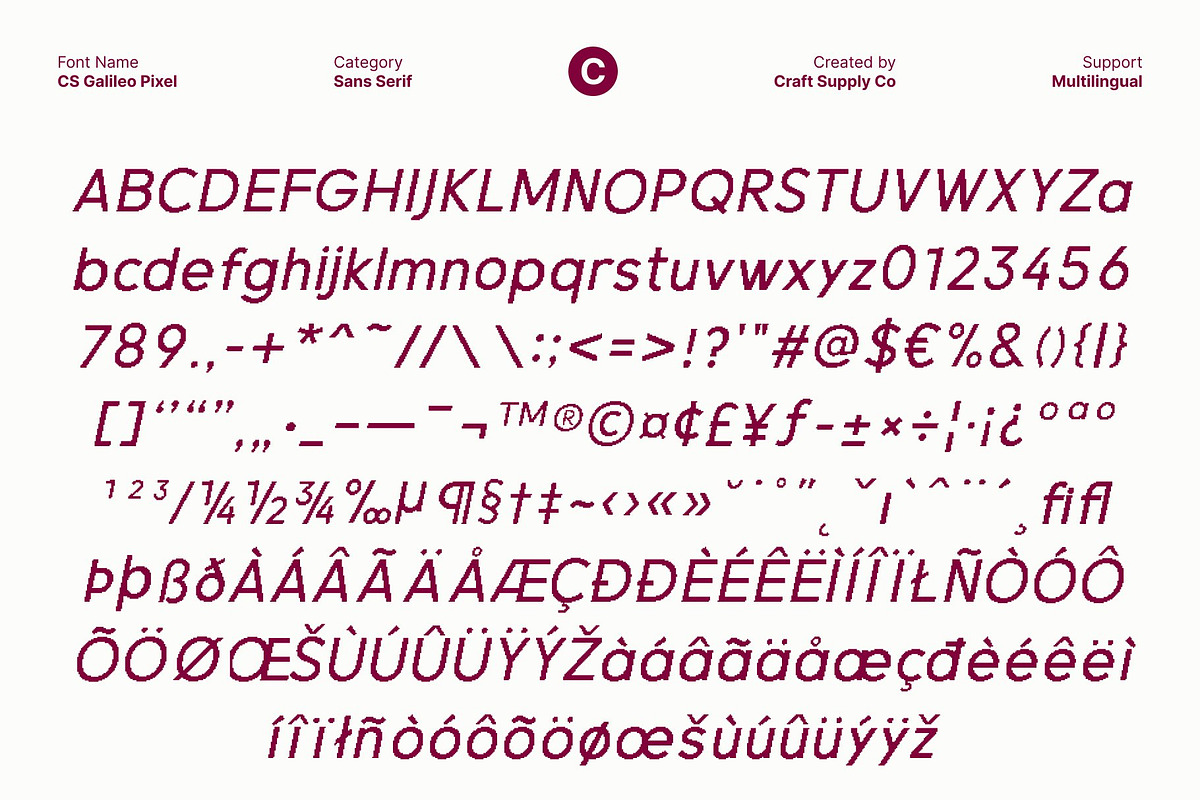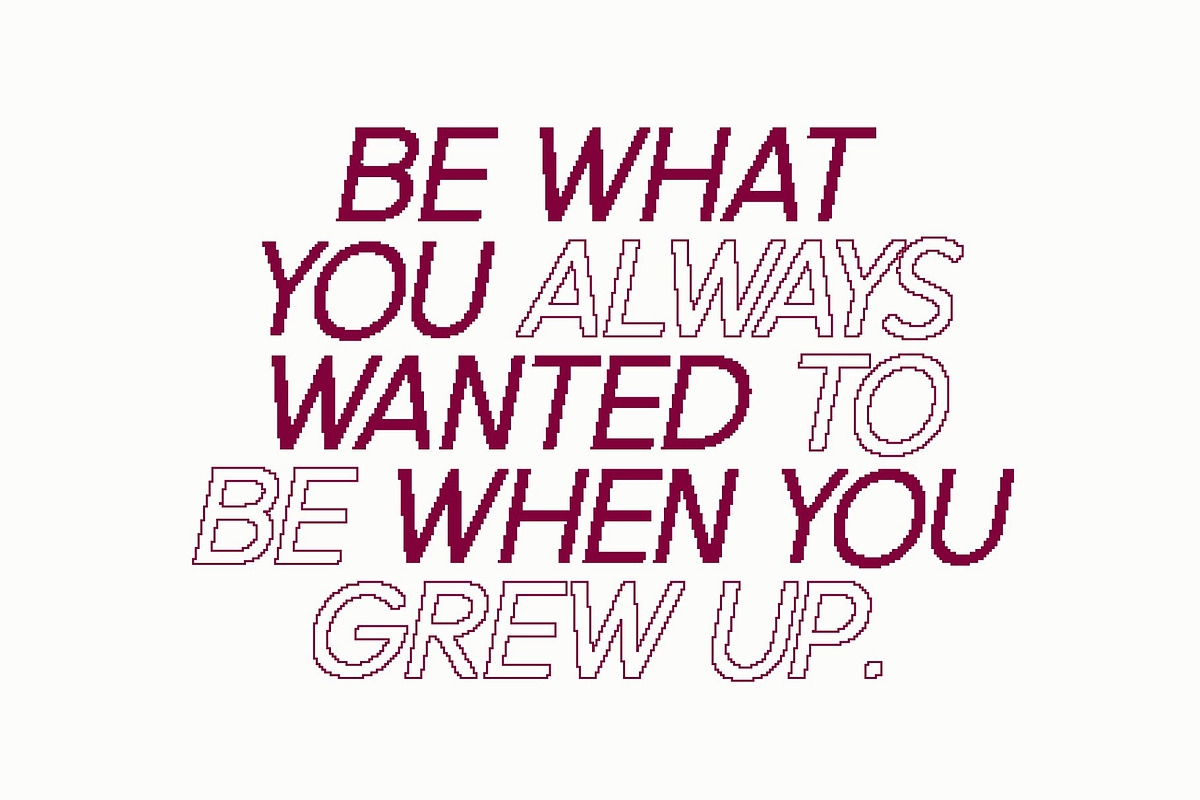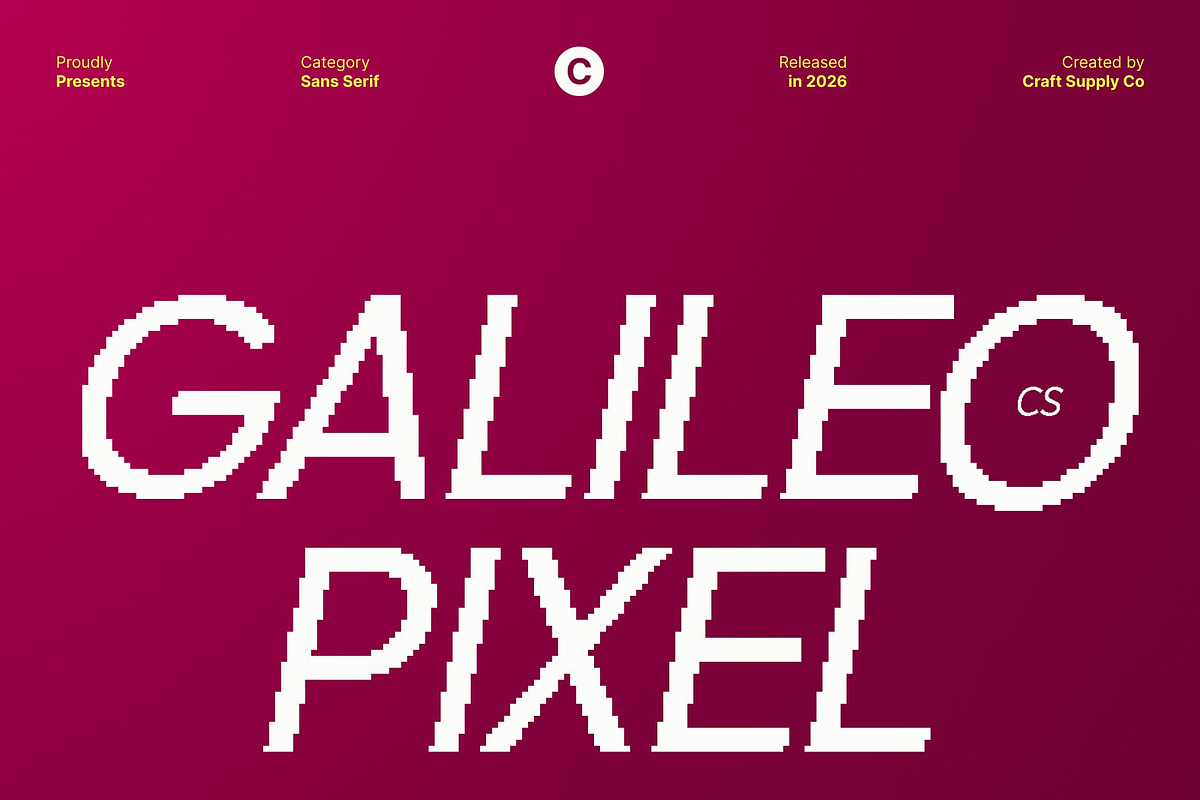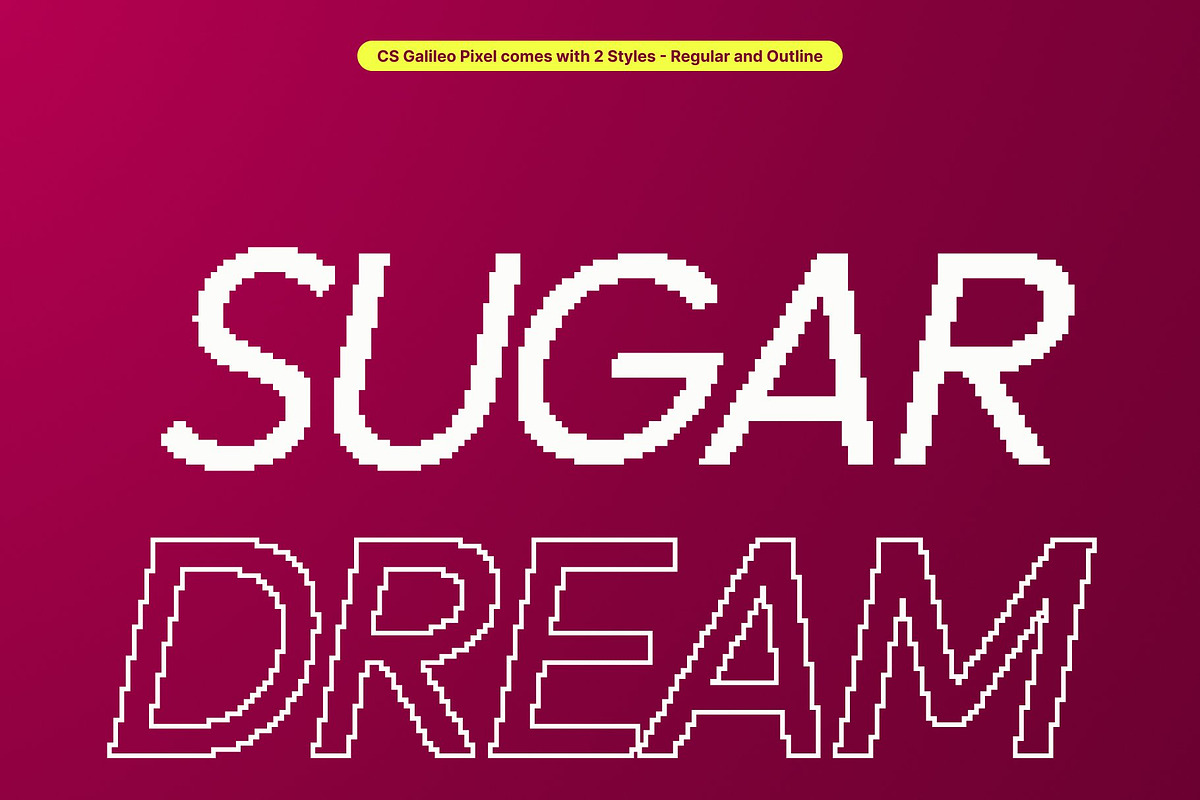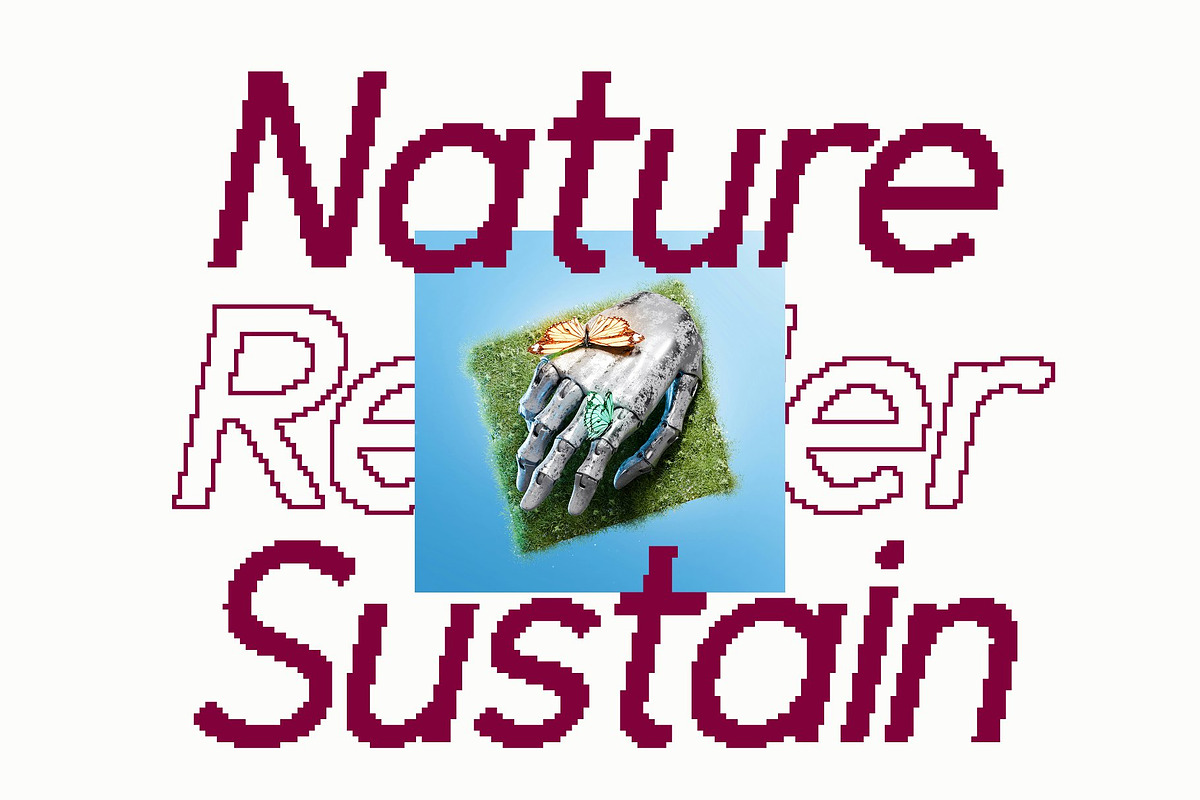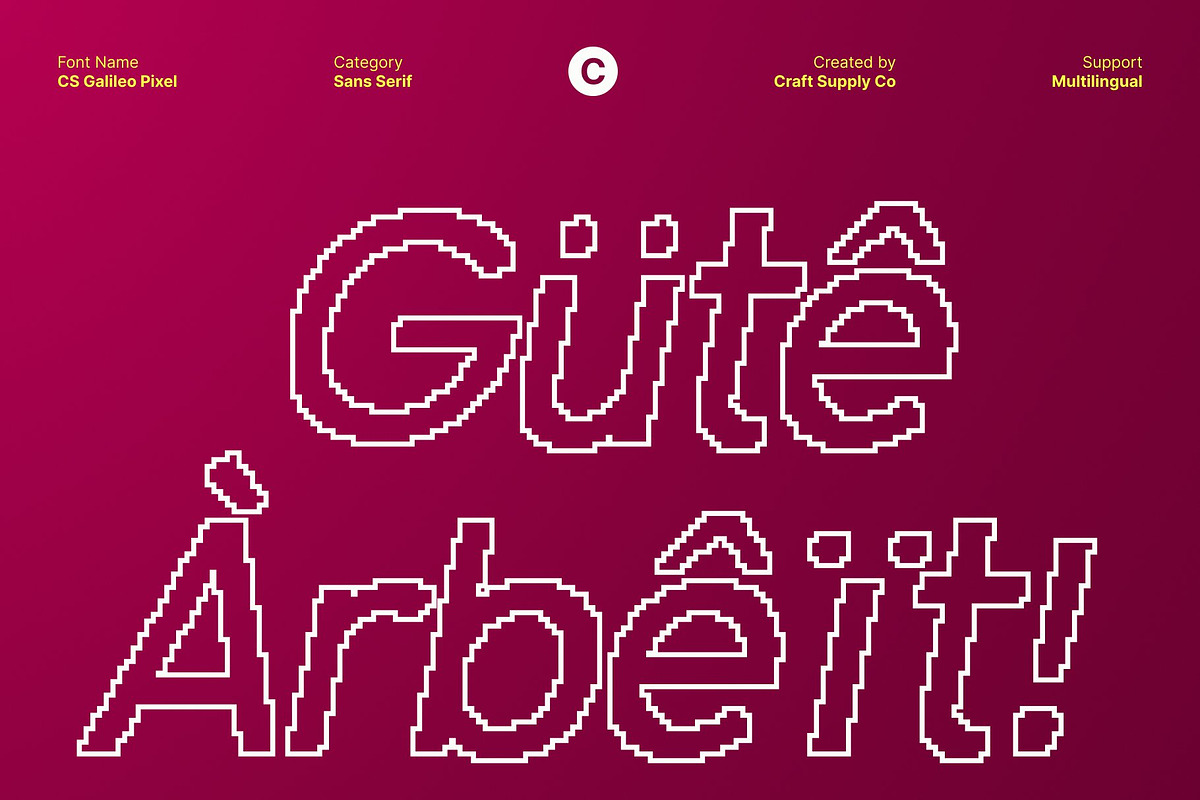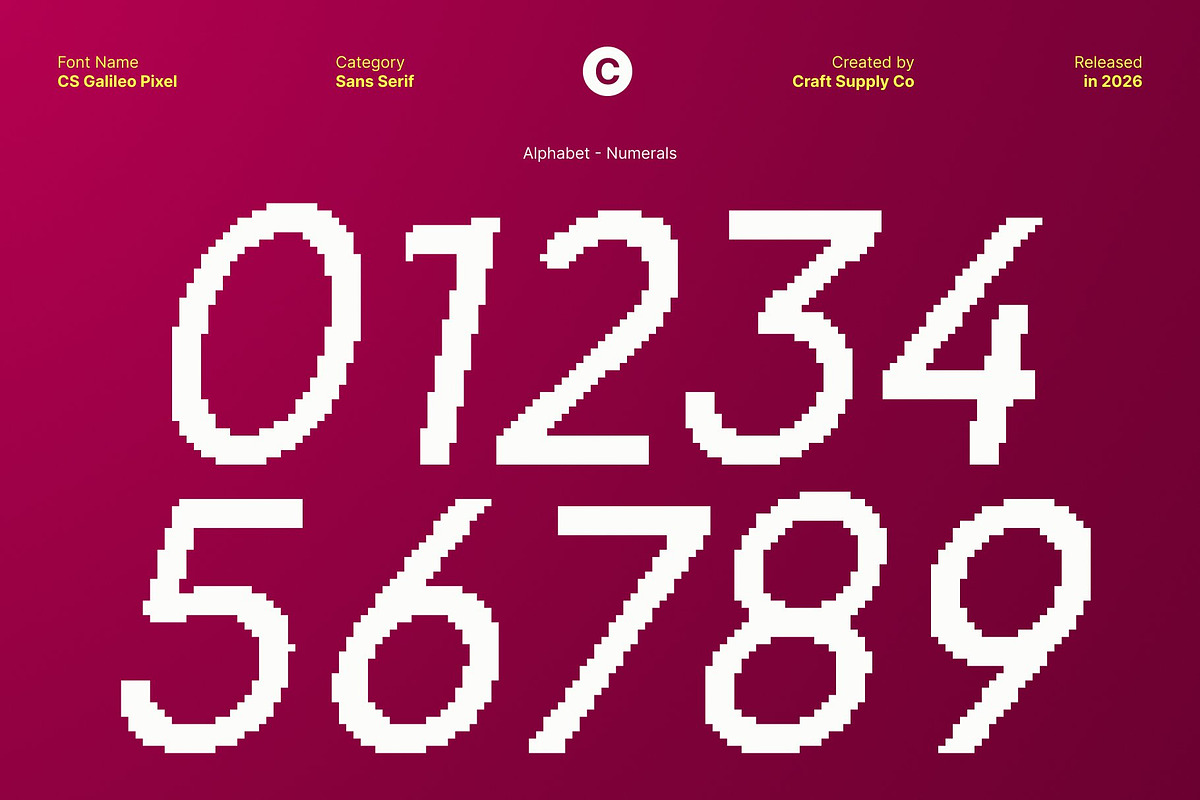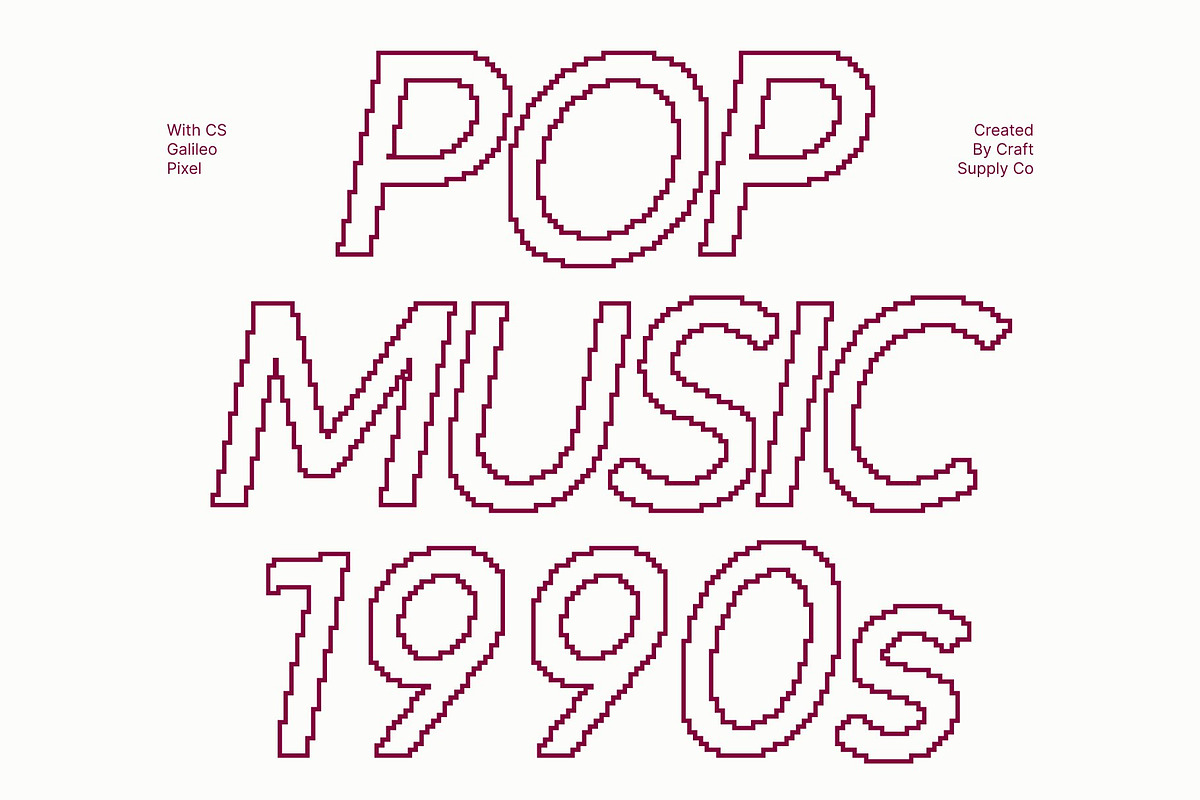
CS Galileo Pixel
CS Galileo Pixel – Modern Sans Serif with Clean Geometric Precision
Modern Geometry with Pixel Accuracy This is a modern sans serif font that merges clean geometric construction with subtle pixel precision. Its minimalist structure, sharp lines, and evenly balanced proportions create a typeface that feels contemporary, efficient, and digitally refined perfect for today’s screen-focused designs.
Clear Structure, High Readability Designed with consistency in mind, This font delivers excellent legibility across digital and print media. The geometric letterforms provide visual order and rhythm, while the pixel-inspired detailing enhances clarity on screens, making it especially effective for interfaces, dashboards, and digital layouts.
Versatile for Corporate and Creative Projects From corporate branding and UI/UX design to editorial layouts and modern presentations, this font adapts effortlessly. Its neutral yet modern character allows it to support a wide range of visual styles professional, minimalist, or tech-forward without overpowering the design.
Efficiency Meets Modern Digital Style This font embodies functional modernism with a clean digital edge. Ideal for tech companies, startups, software products, and professional branding systems, this font offers a reliable typographic foundation where precision, performance, and modern aesthetics work in perfect harmony.
- CS Galileo Pixel Regular
- CS Galileo Pixel Outline